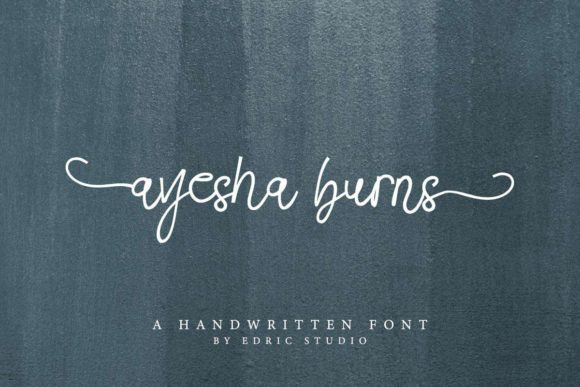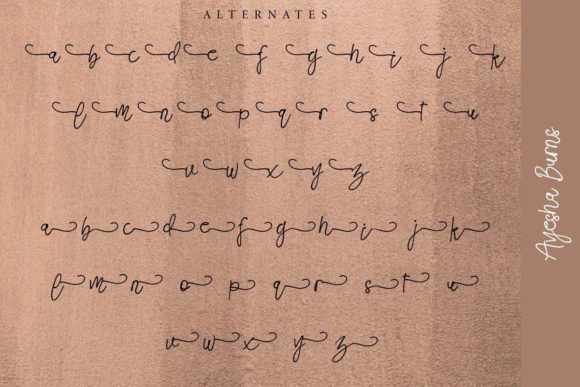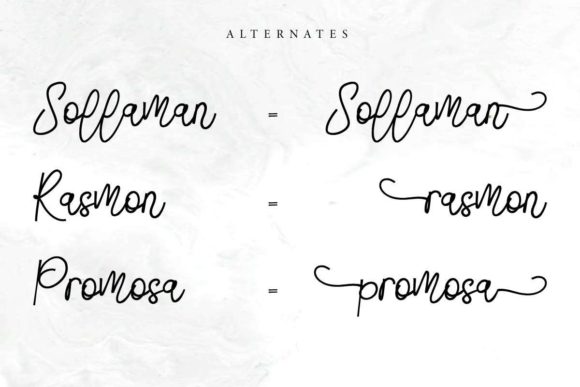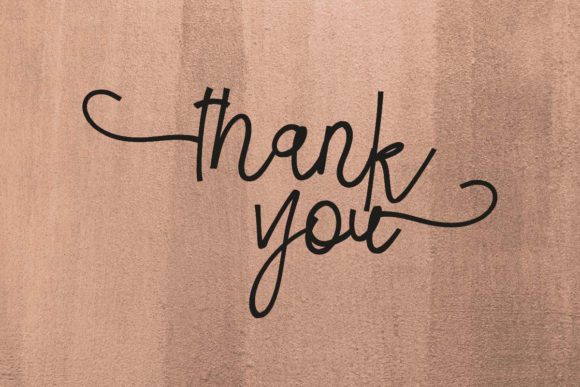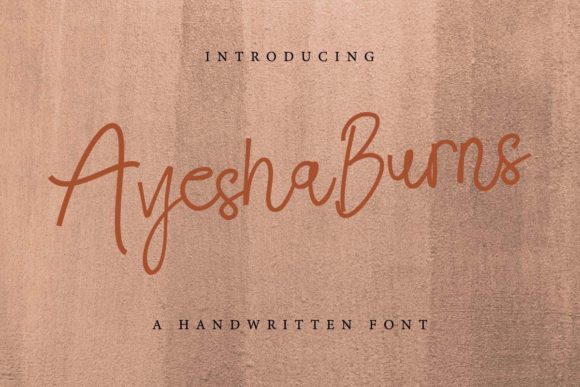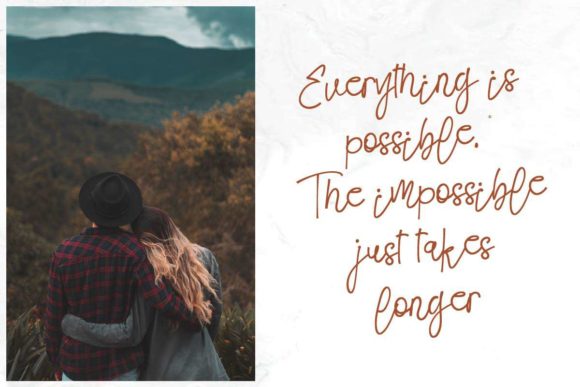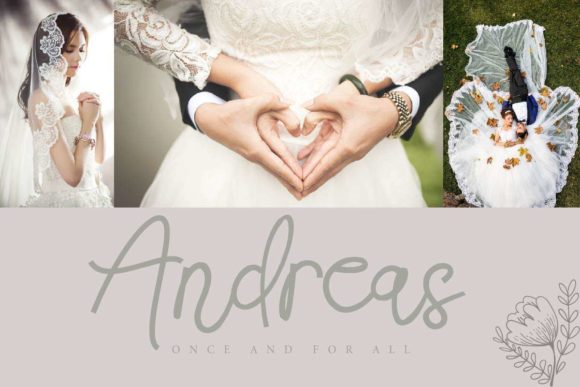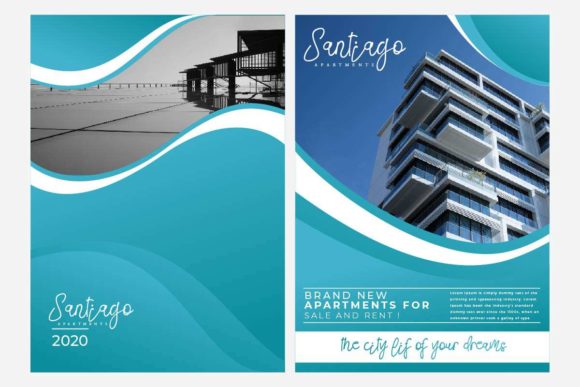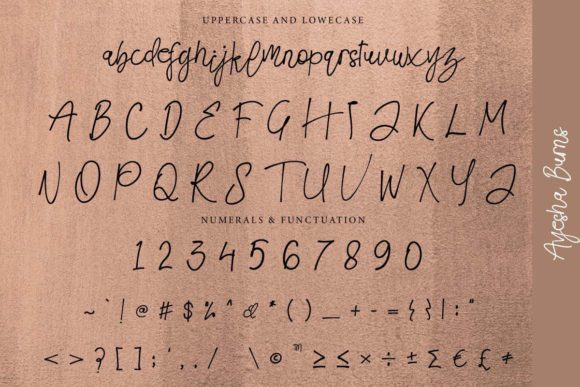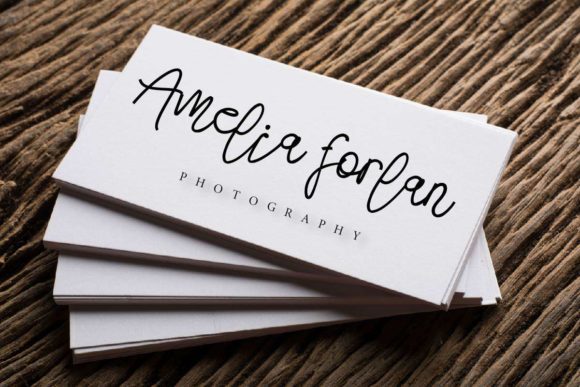
Ayesha Burns Font
About Ayesha Burns Font
Ayesha Burns embodies fun, quirkiness and authenticity. This enchanting handwritten font will turn any creative idea into a true standout.